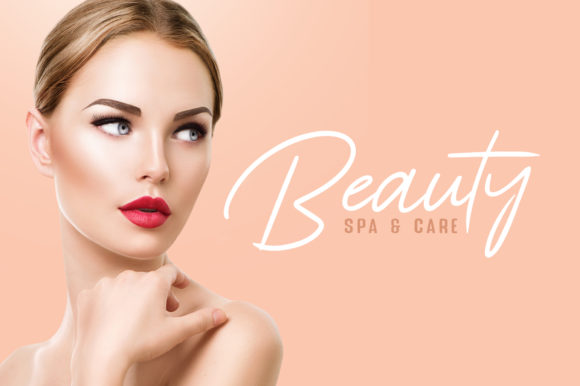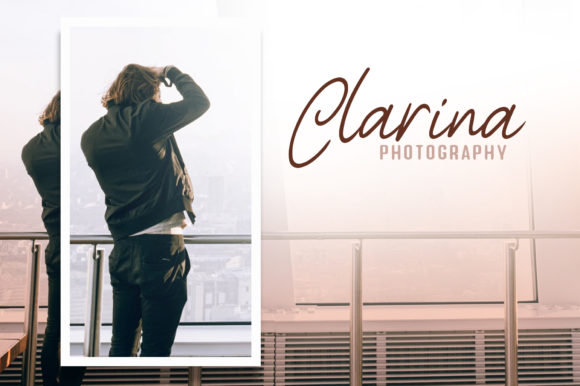
Peach Fonte Font
db-ku.com - Script & Handwritten -- Peach Fonte is a lovely duo font (sans serif and script). Incredibly versatile, this font fits a wide pool of designs, elevating them to the highest levels. Add this font to your favorite creative ideas and notice how it makes them come alive!